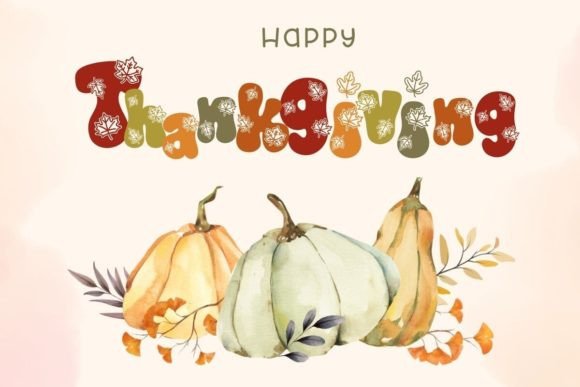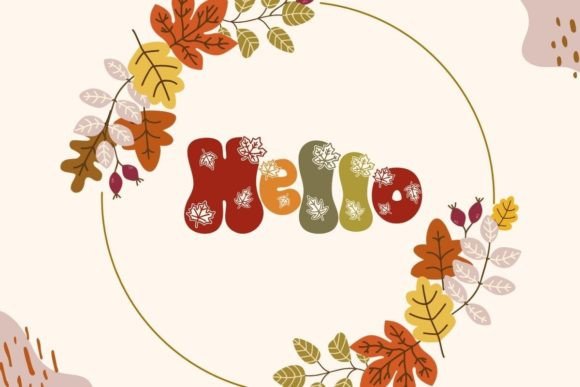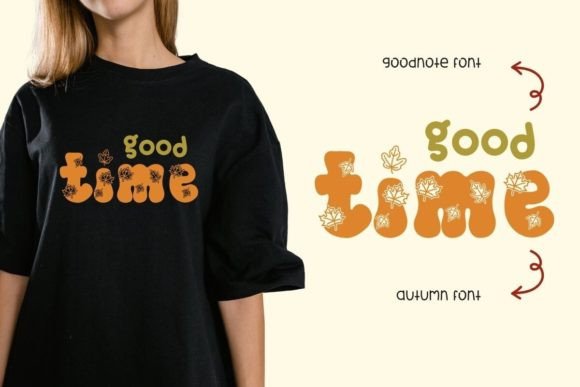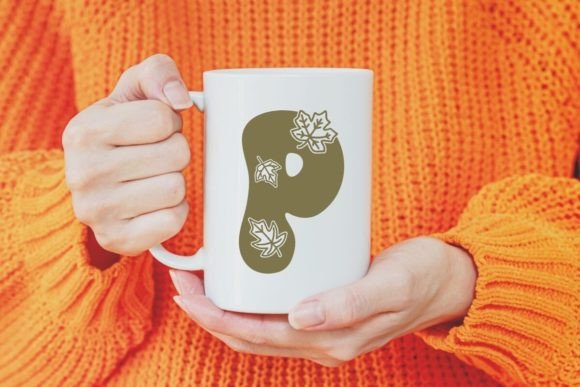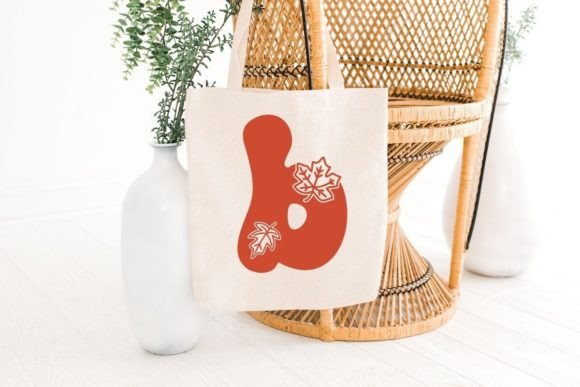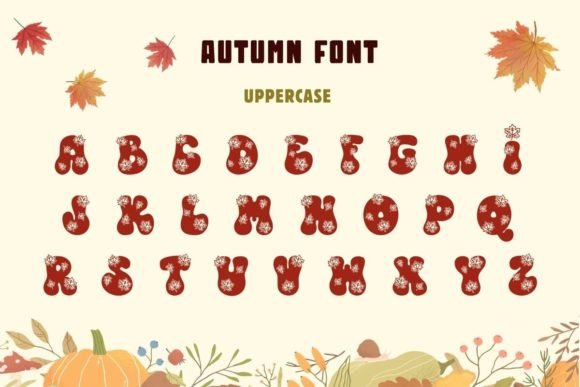
Discover the Magic of Autumn Font
As designers, we’ve all been there – staring at a blank canvas, waiting for inspiration to strike. One crisp morning, while sipping on a warm cup of coffee, the idea hit me: to create a font that captures the essence of the changing seasons. The result was the Autumn Font, a delightful and vibrant typeface adorned with charming maple leaves in various colors.
This charming font is perfect for projects that require a touch of nature and whimsy, such as invitation cards, poster designs, or product packaging that needs a boost of cheerfulness and cuteness. The Autumn Font adds charm and makes your text stand out with its unique and captivating style.
For designers, the Autumn Font is a valuable addition to their toolkit, offering a fresh and creative way to express their ideas and bring a sense of wonder to their projects.
Autumn Font Key Features
- Font Family: Autumn Font is a sans-serif font family.
- Size: Autumn Font family includes 6 font weights, ranging from Thin (100) to Black (900).
- Unique Characteristics: Autumn Font features a unique blend of modern and natural elements, with subtle texture and organic feel.
Review of Autumn Font
Overall, I was quite impressed with the Autumn Font. It’s a great choice for designers who want to evoke a sense of coziness and warmth in their projects. ✨ The font’s organic, handwritten feel makes it perfect for creating a welcoming atmosphere.
- ✨ The font’s versatility – it can be used for a wide range of projects, from invitations to branding.
- ✨ The unique, hand-drawn feel that sets it apart from more common fonts.
- ✨ The font’s readability – even at smaller sizes, the text is still easy to read.
- ⚠️ The font may not be suitable for projects that require a more formal tone.
- ⚠️ Some users may find the font’s irregularities to be distracting.
- ⚠️ The font may not be compatible with all operating systems or software.
Overall, I would recommend the Autumn Font to designers who want to add a touch of warmth and personality to their projects. Just be aware of its limitations and use it judiciously.
Tips for Getting the Most Out of Autumn Font
1. Use Autumn Font for titles, headings, and body text to create a cohesive and inviting design.
2. Experiment with different font sizes, colors, and styles to create visual interest and hierarchy.
3. Pair Autumn Font with other fonts or graphics to create a unique and engaging design.
2. Fall-themed designs and graphics.
3. Blog posts and articles with a seasonal or autumnal theme.